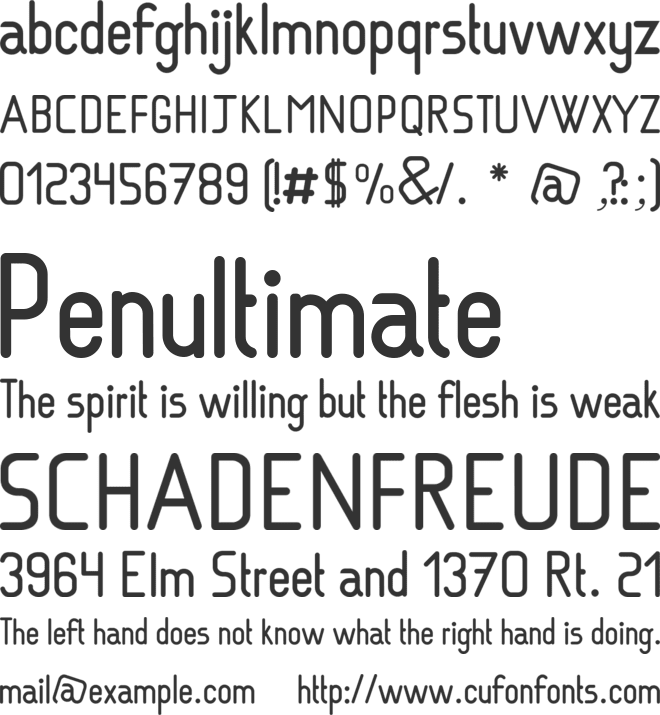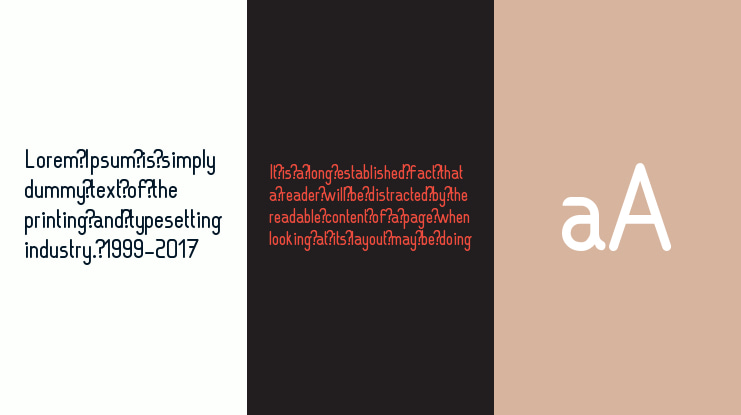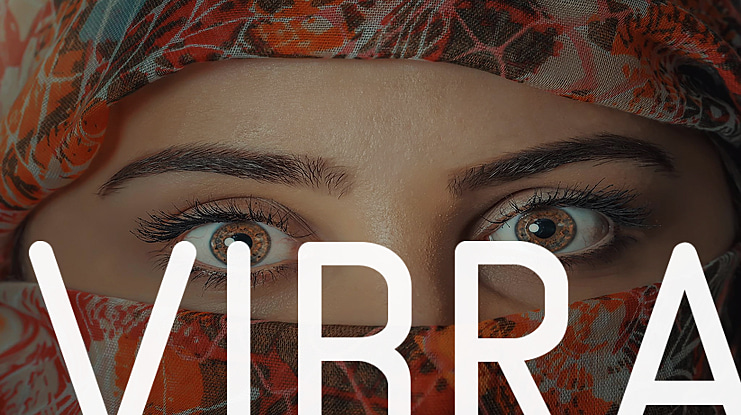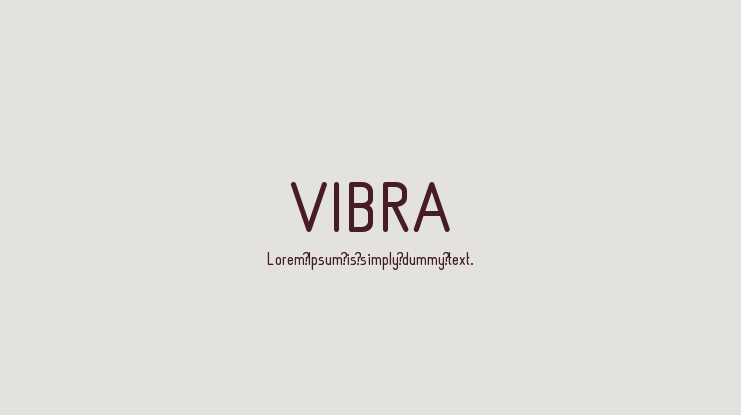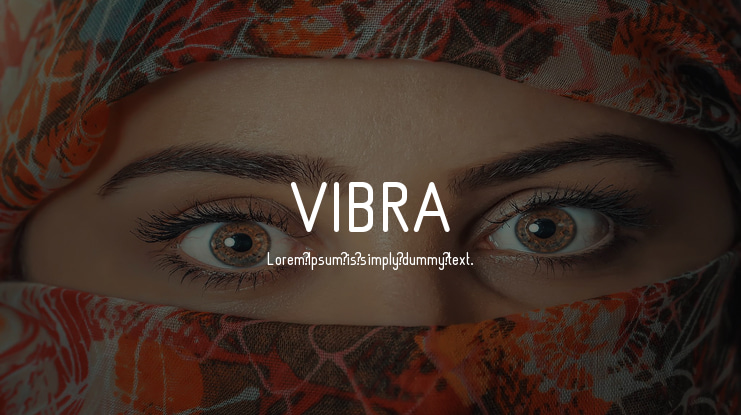
VIBRA Font
Calixte Patissier
Introducing Vibra Type from Calixte Patissier. Vibra Type is an extremely unique display font that features 2 sets of capital letters - a standard set, and also a set with modern geometric characters. These extra characters make this font perfect for eye catching logos, posters & headlines.